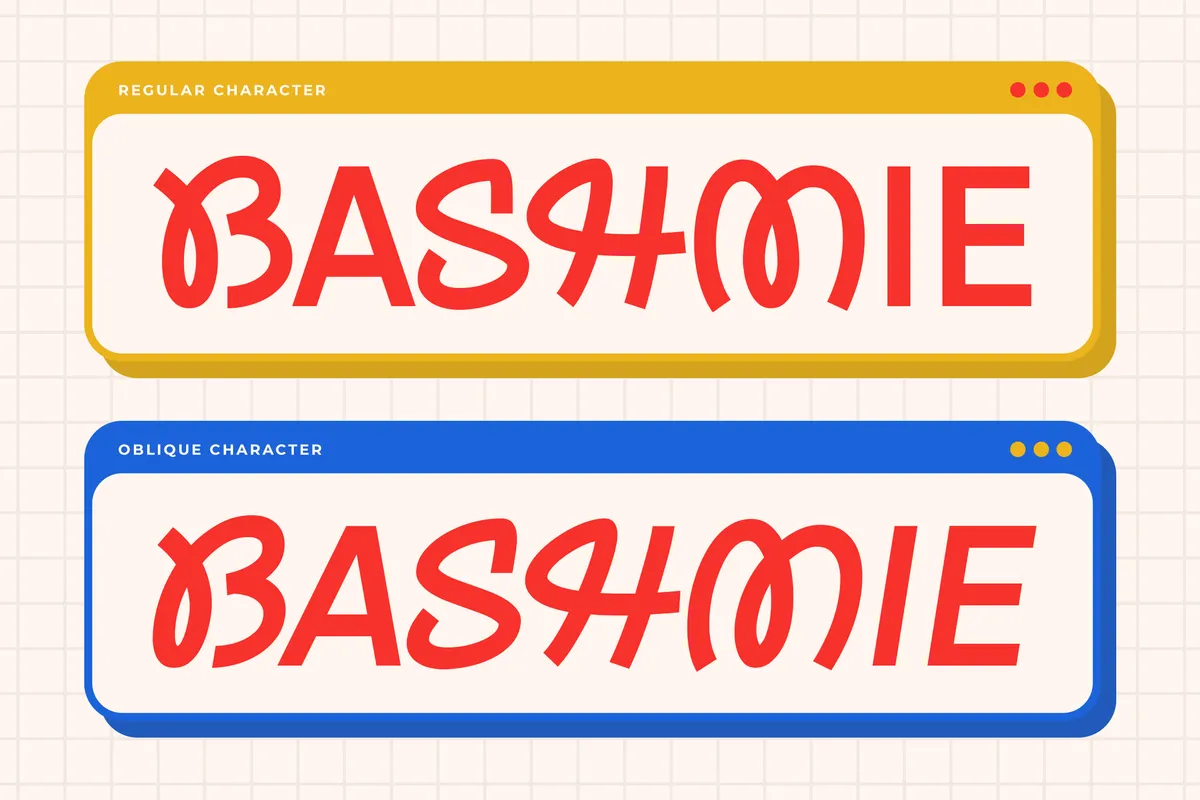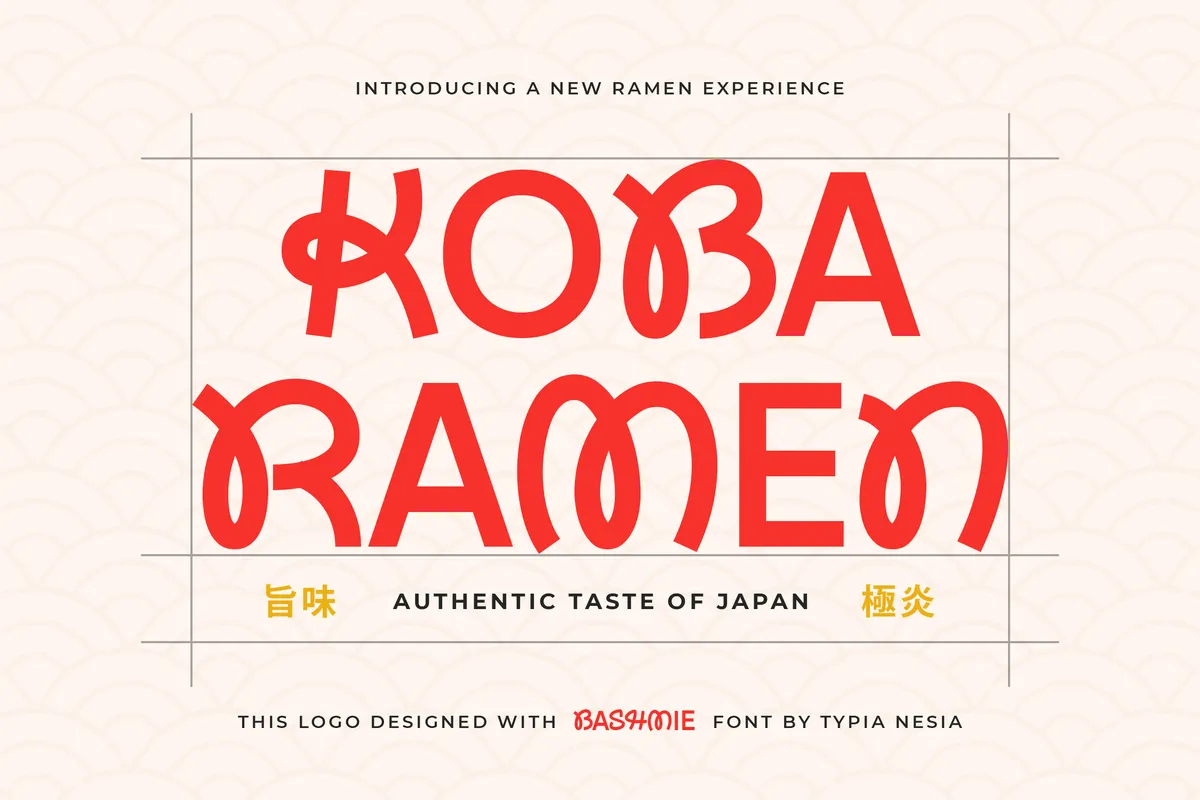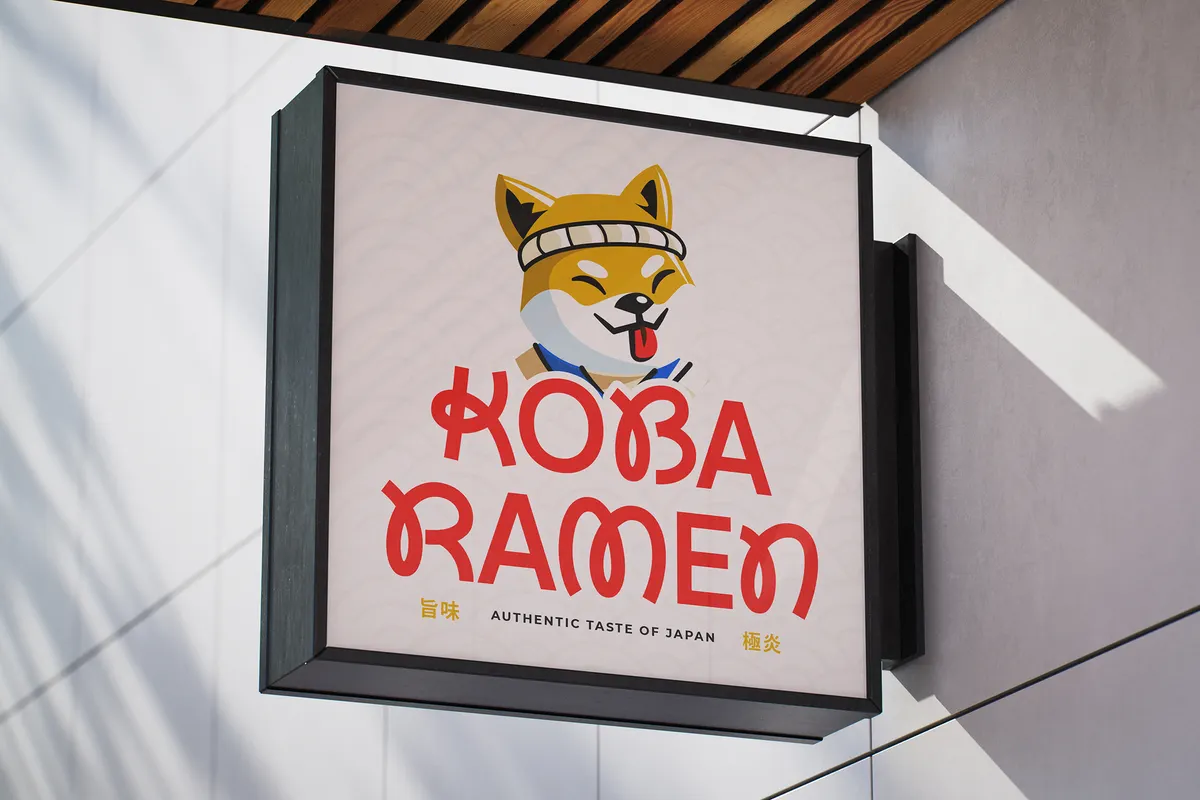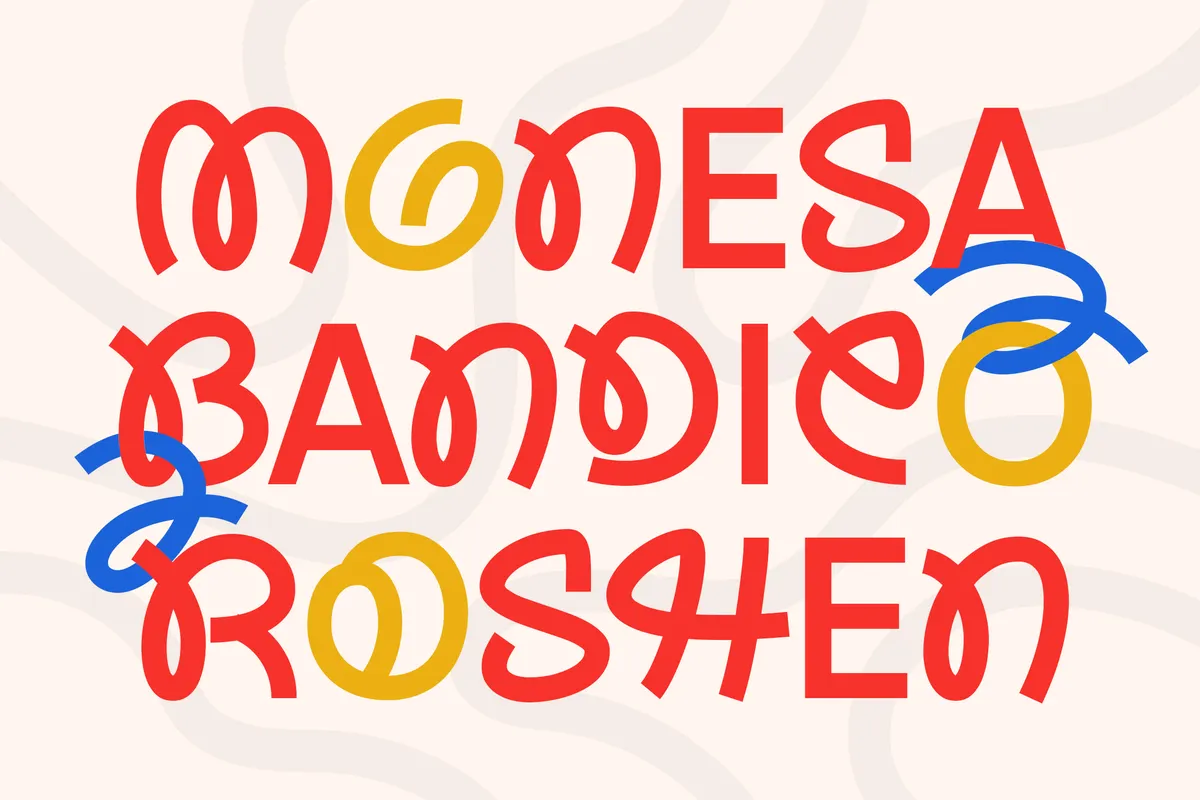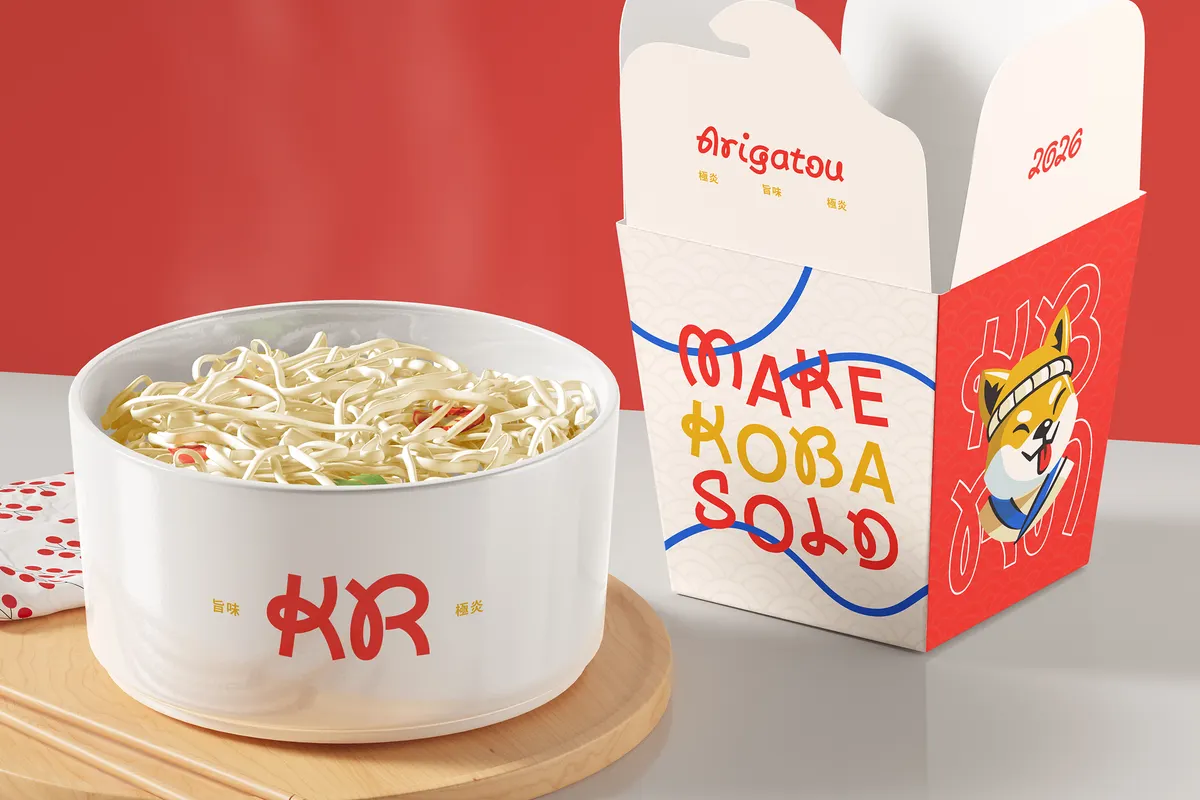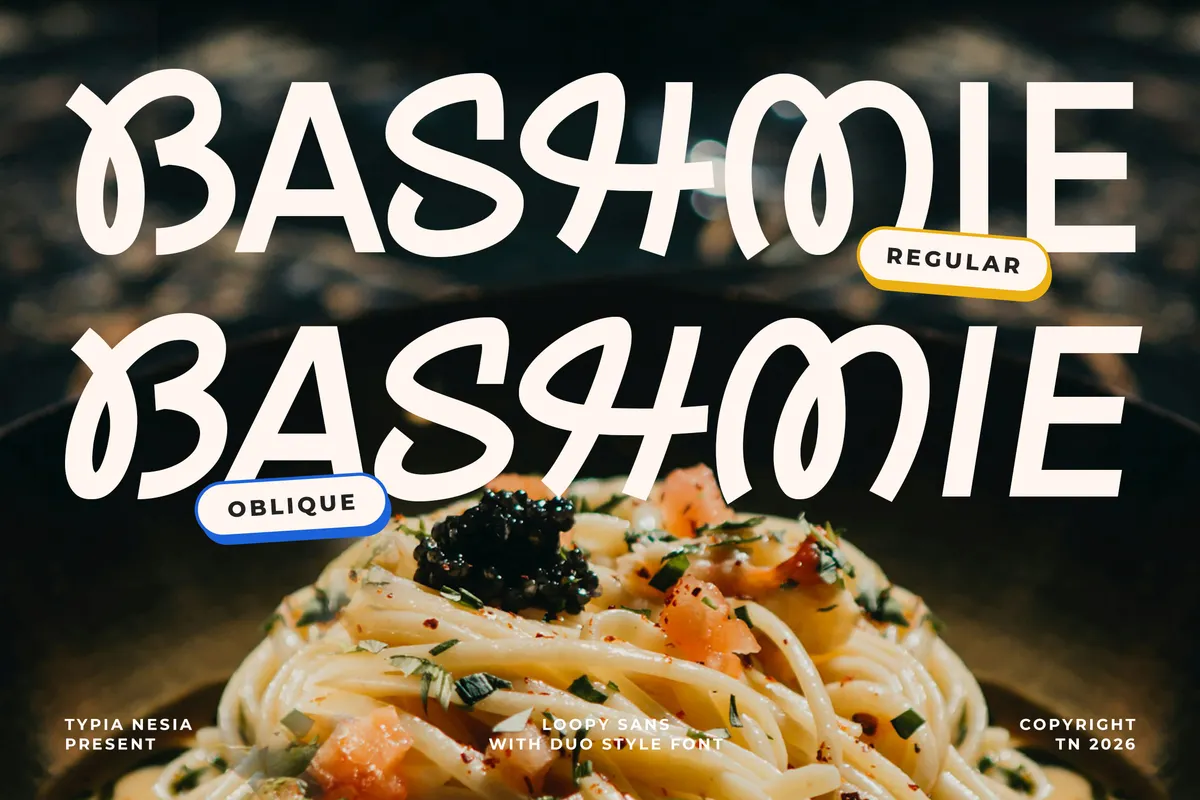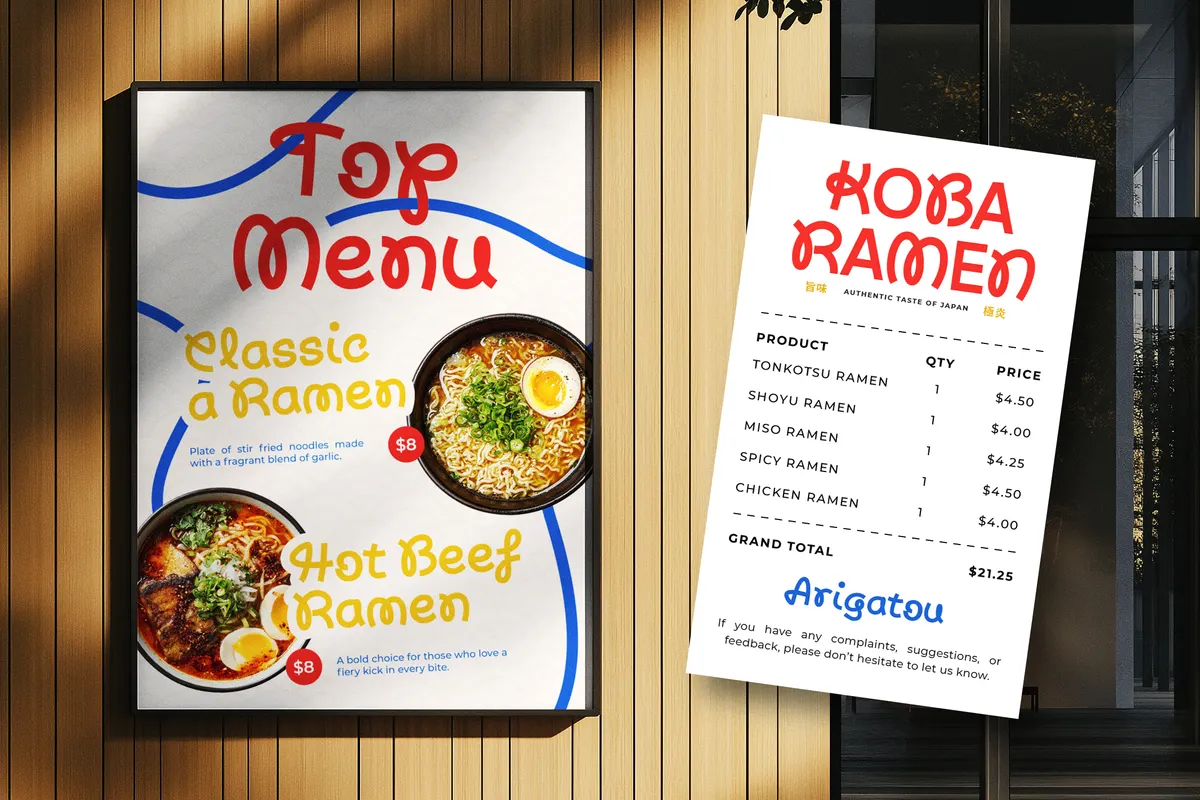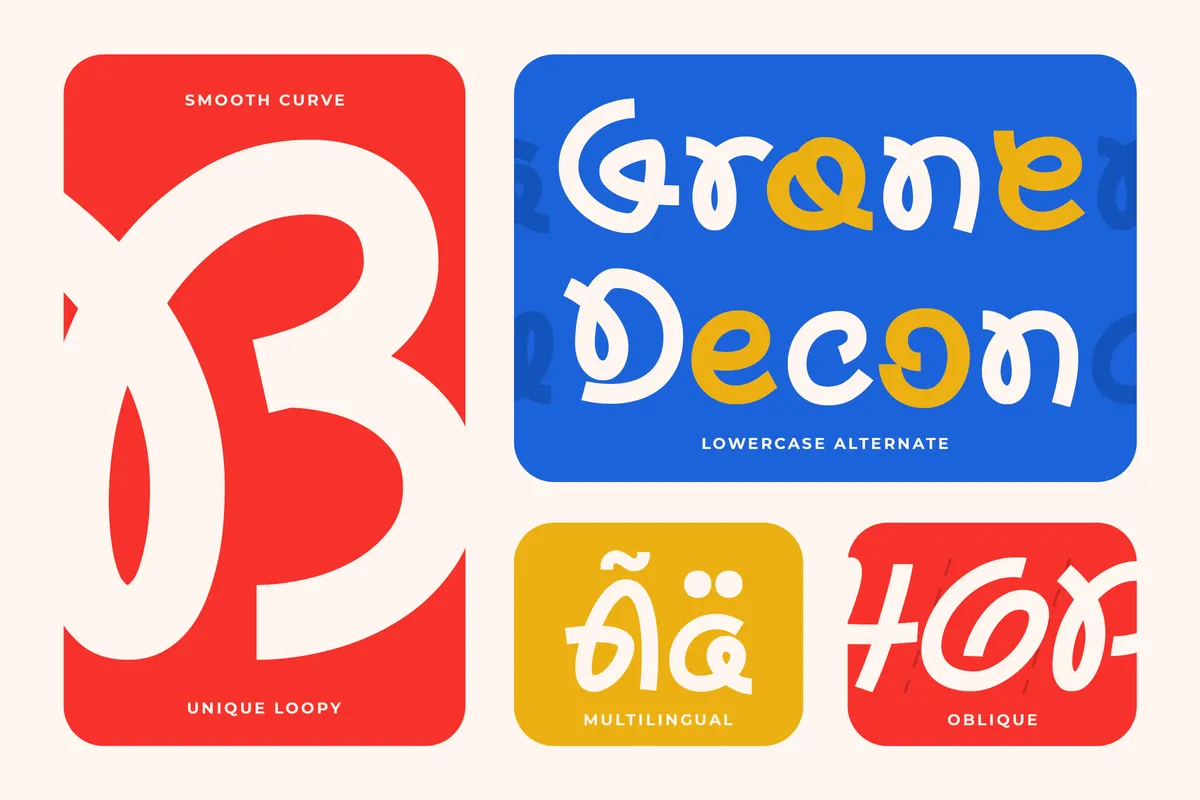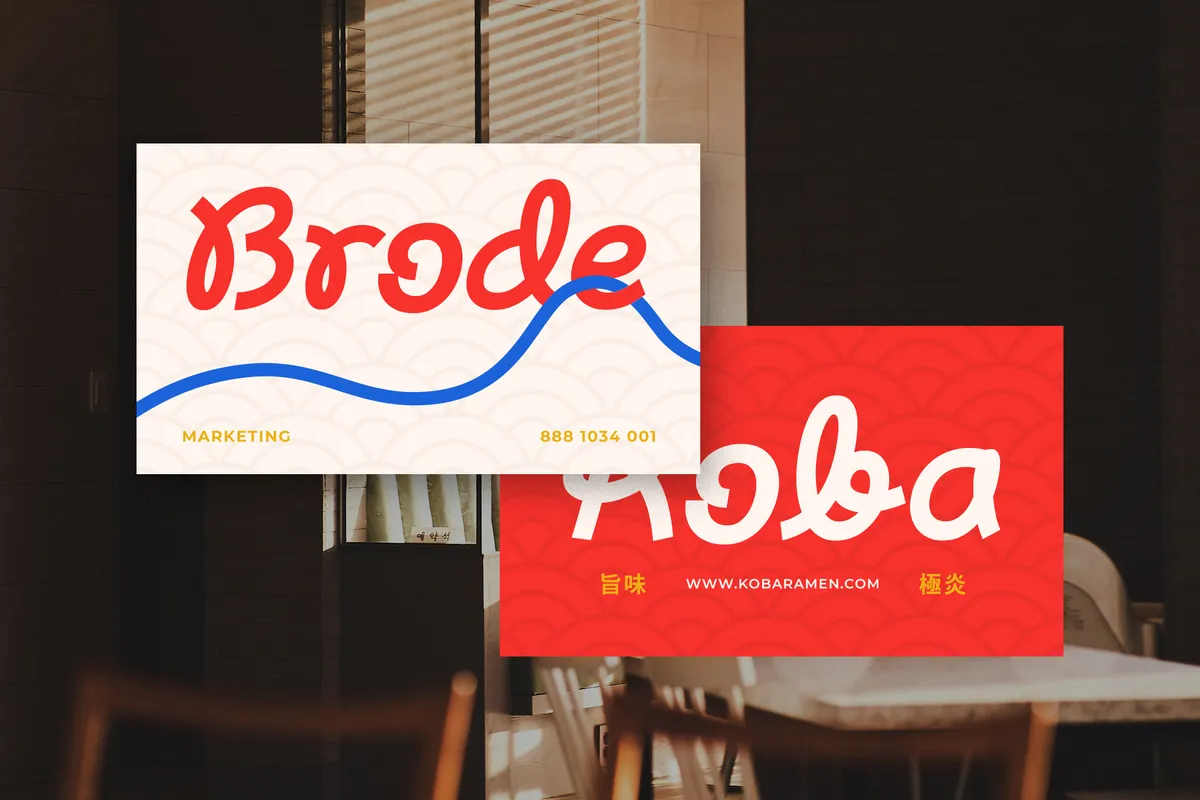
Bashmie - Noodle Loop Display Font
Slanted
Bashmie is a playful sans serif font drawn in a single even stroke that curls into loops on the m, h and B, so a word looks written with one strand of noodle. The vowels have alternates, which breaks up repeated letters in a short name.
The Slanted style is a leaned version of the same drawing for a second line or a menu subhead. Use it for ramen and noodle bar branding, café menus, takeaway packaging, food truck signage, bakery labels, kids' snack brands, and restaurant social posts.